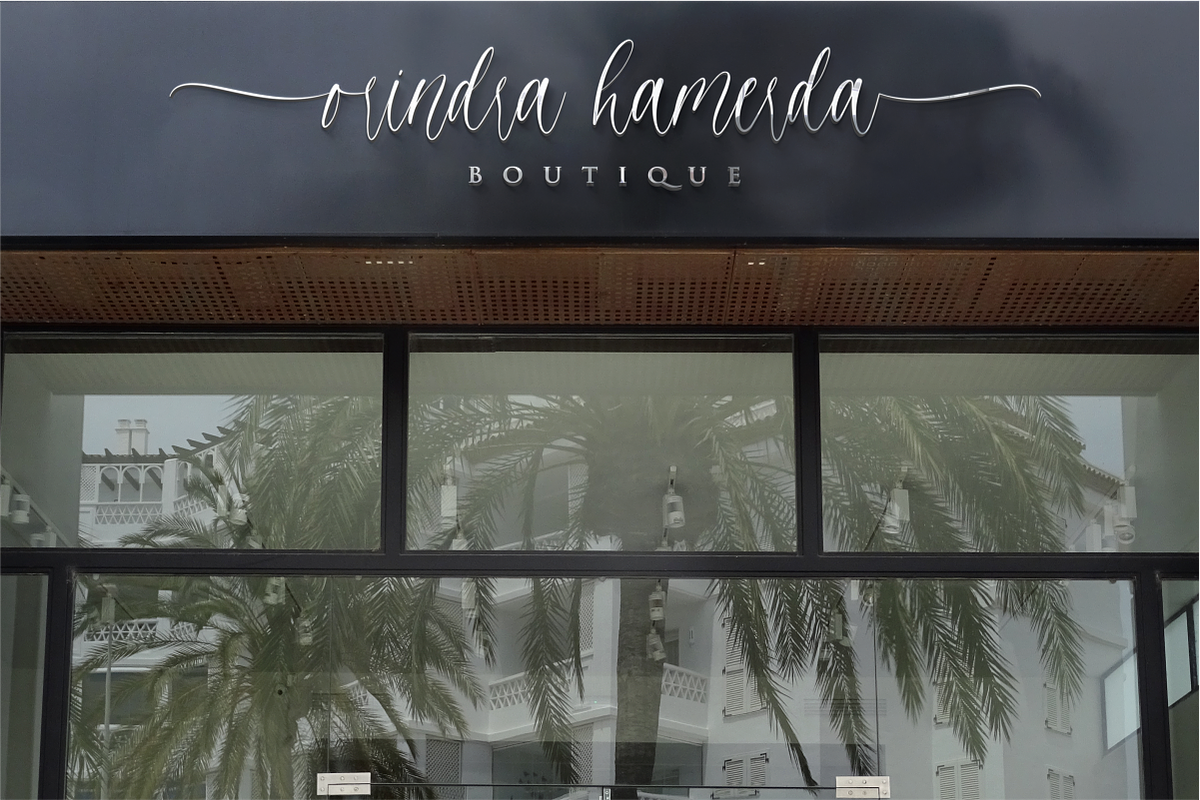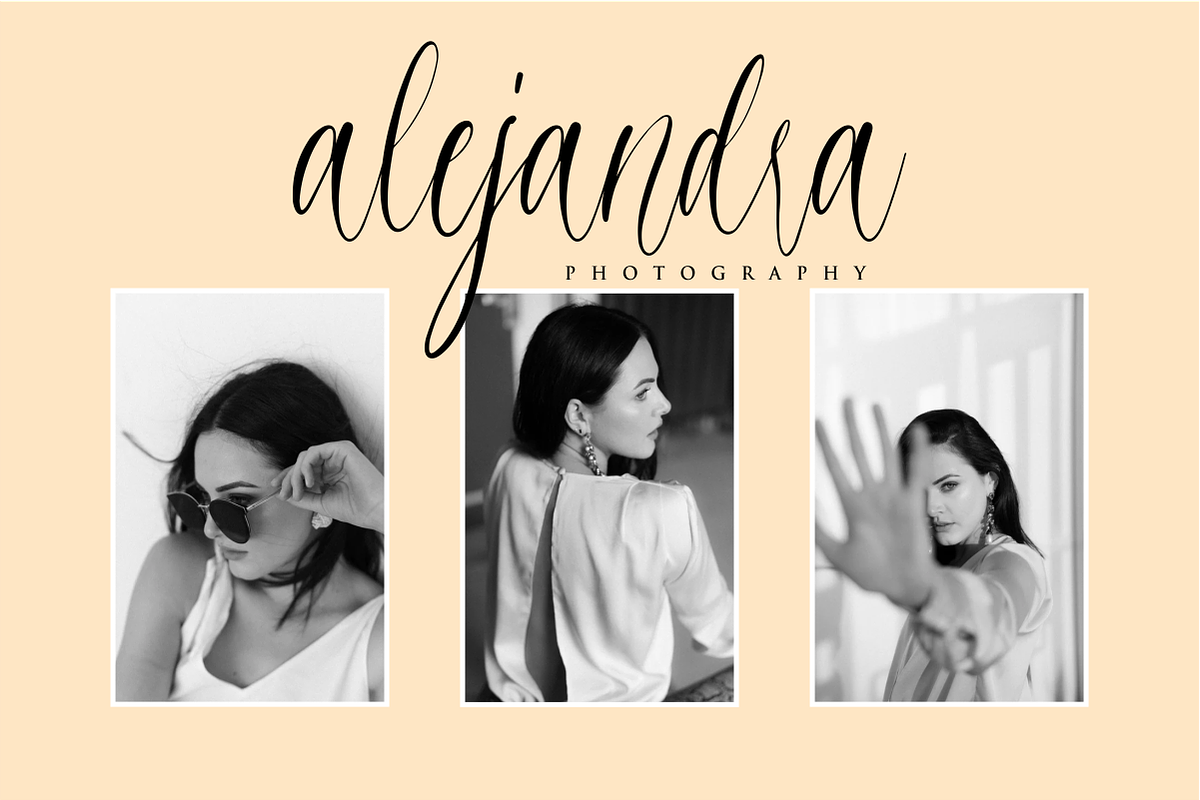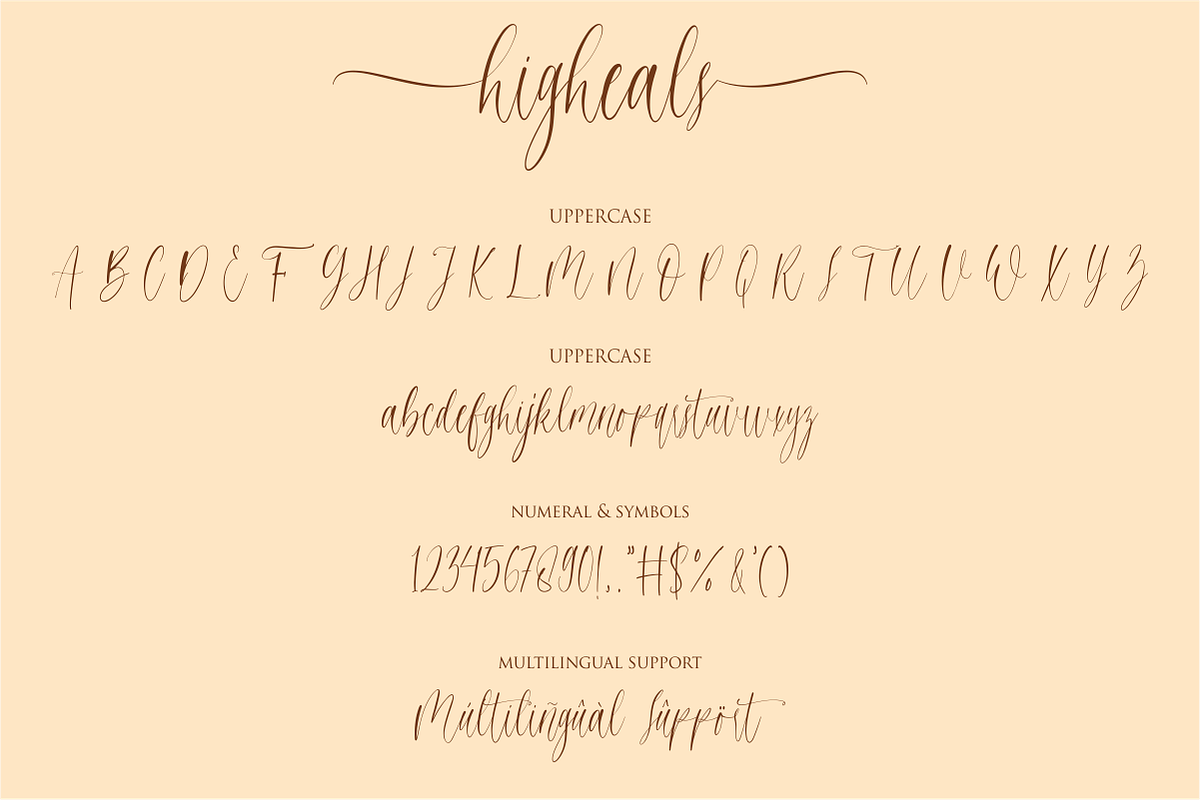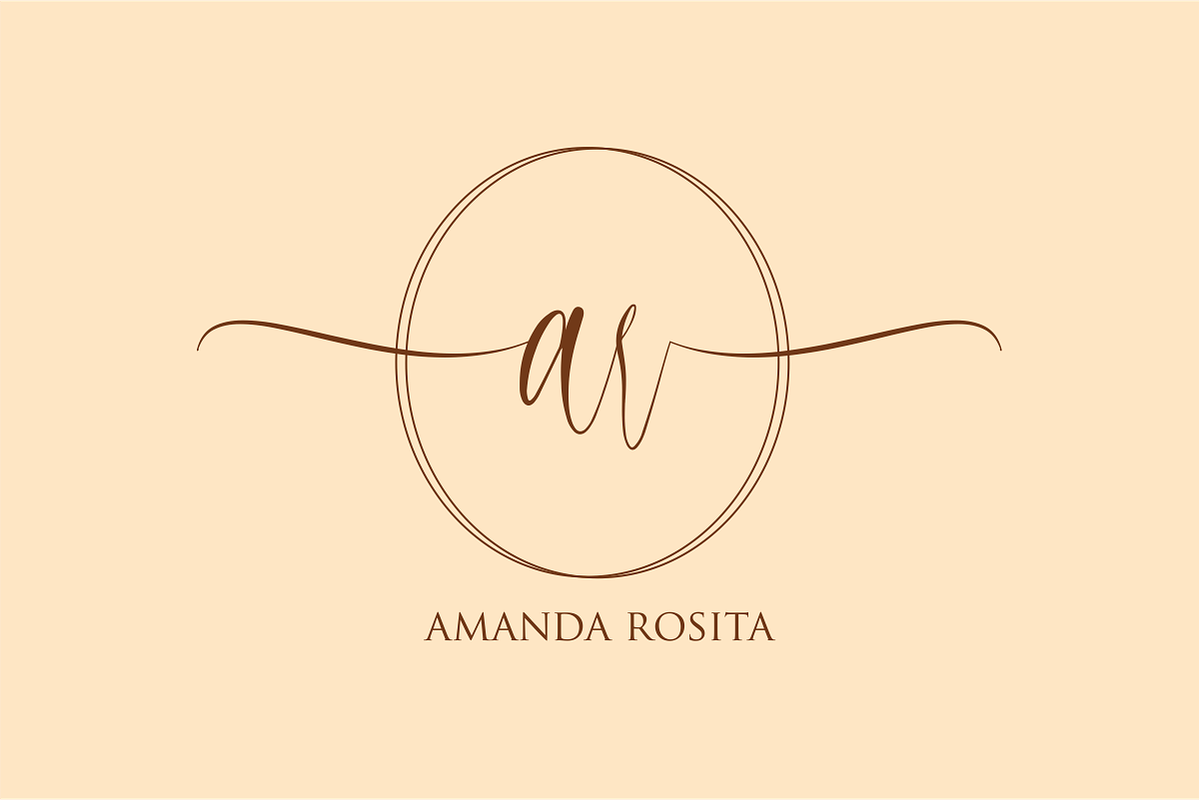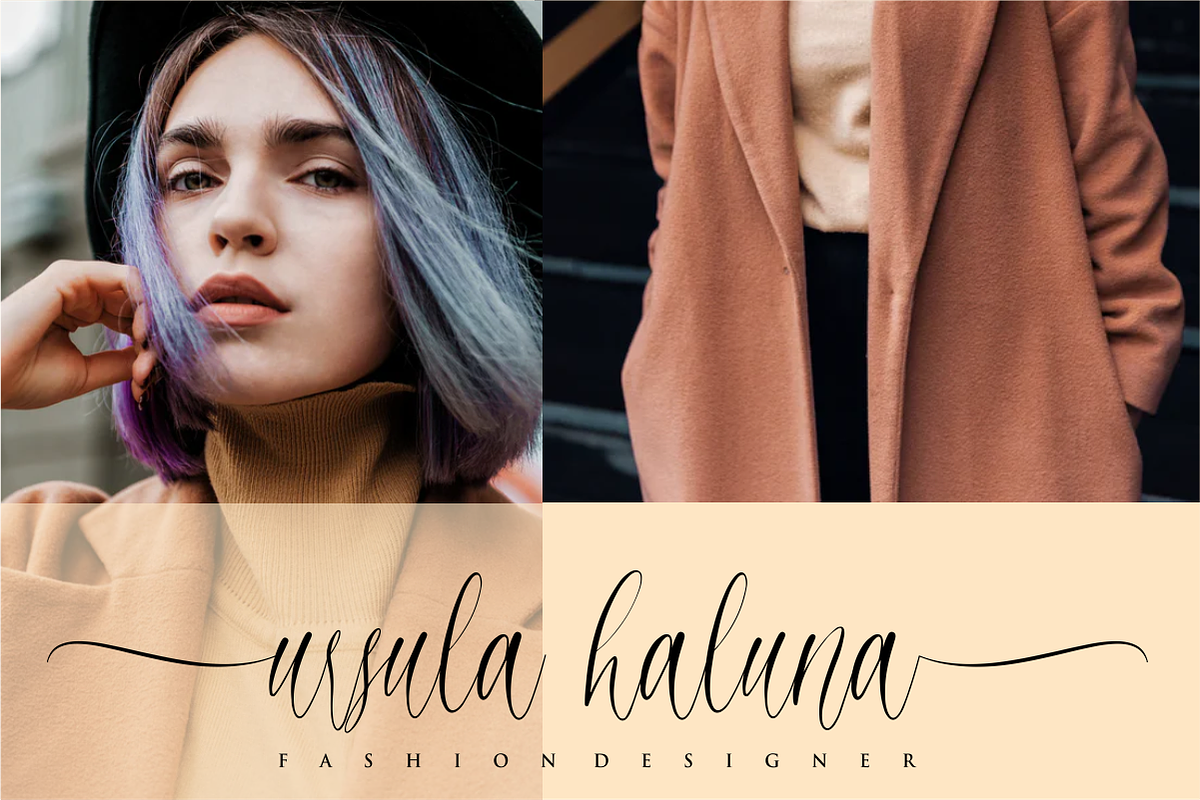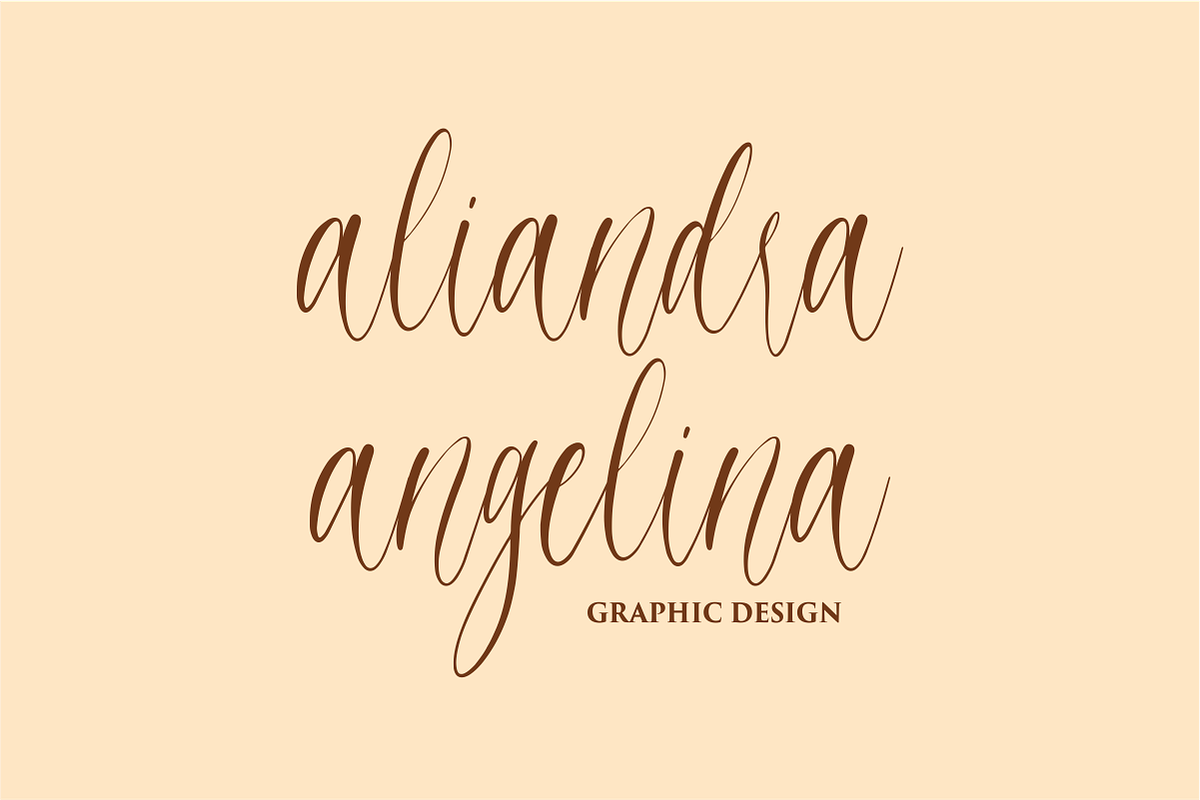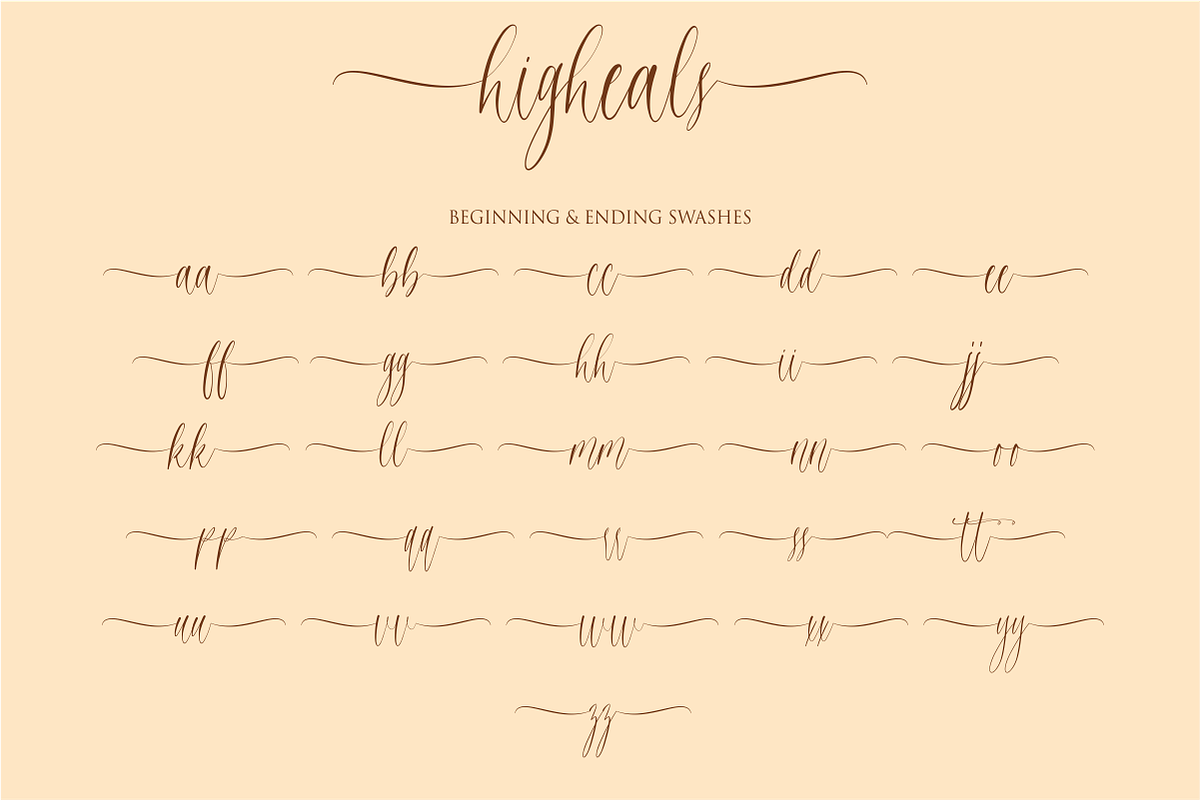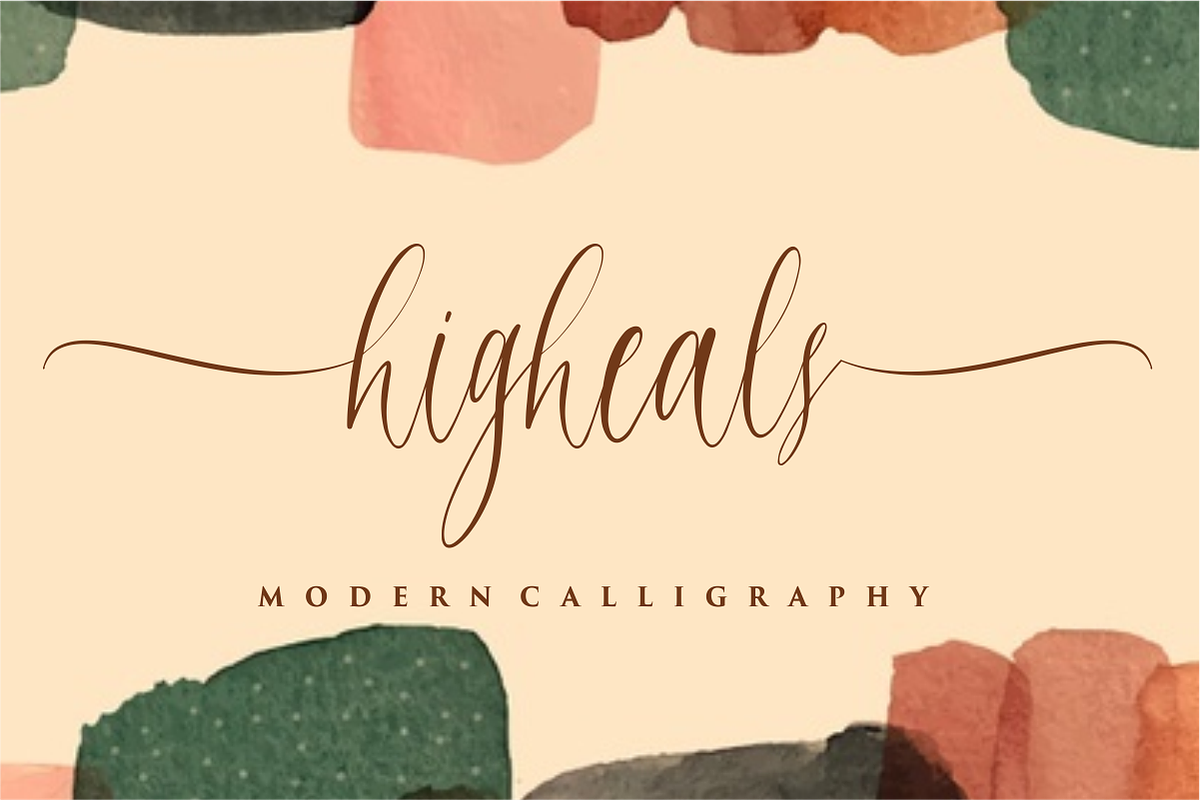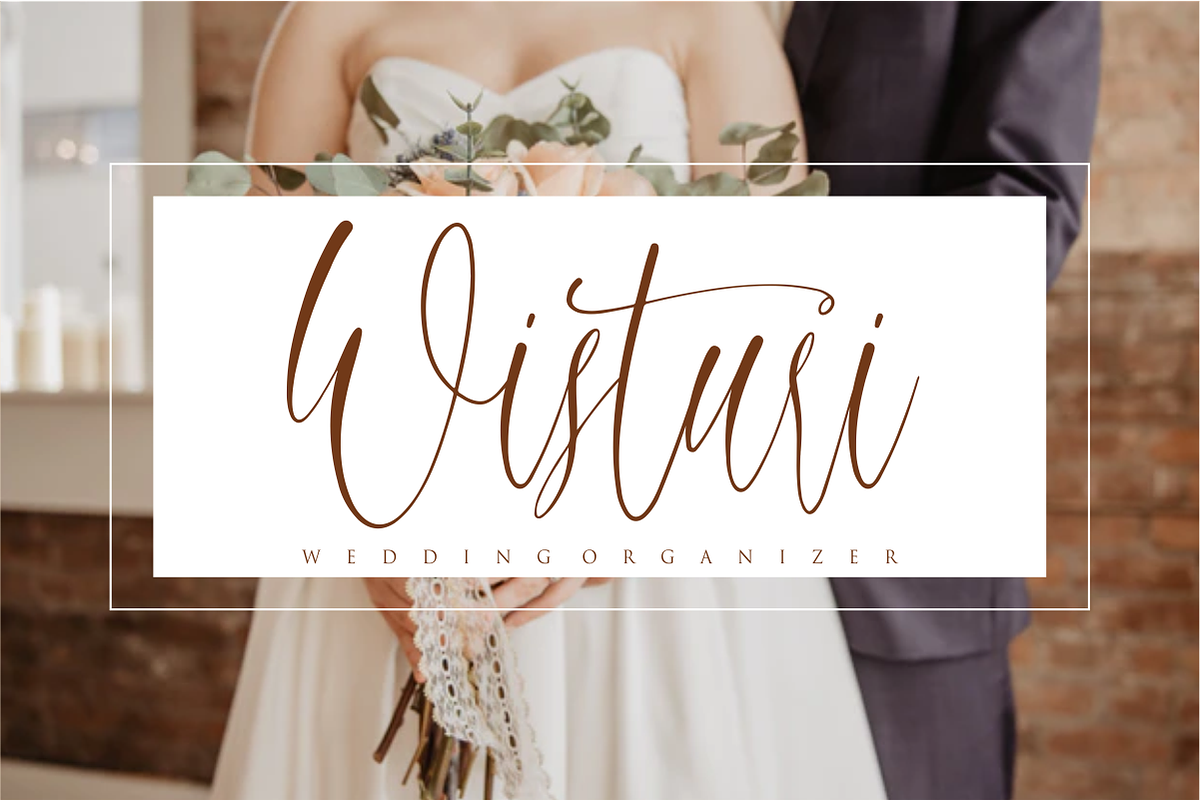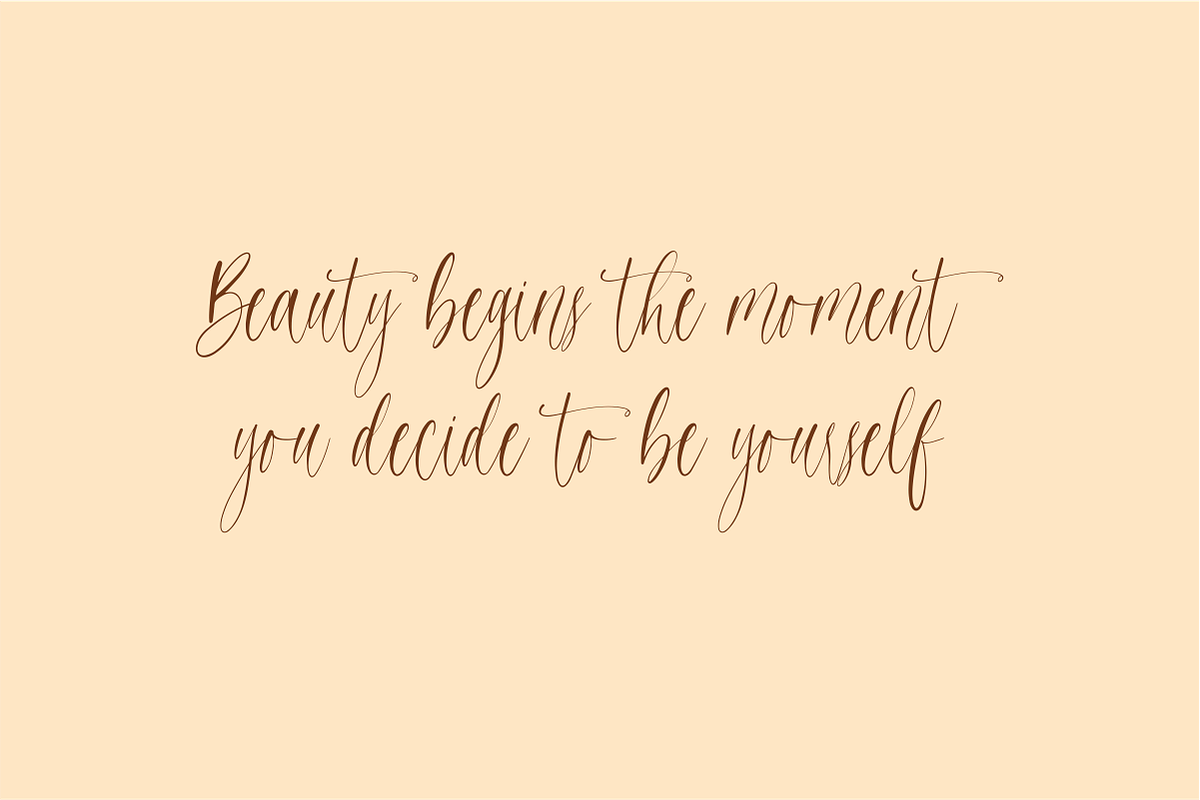
Higheals - Modern Calligraphy
Higheals is a modern calligraphy font, this font Is perfect for logo, invitations, stationery, wedding designs, social media posts, advertisements, product packaging, product designs, label, photography, watermark, special events, or anything.
Higheals comes with a full set of uppercase and lowercase letters, lowercase swashes, multilingual symbols, numerals, punctuation.